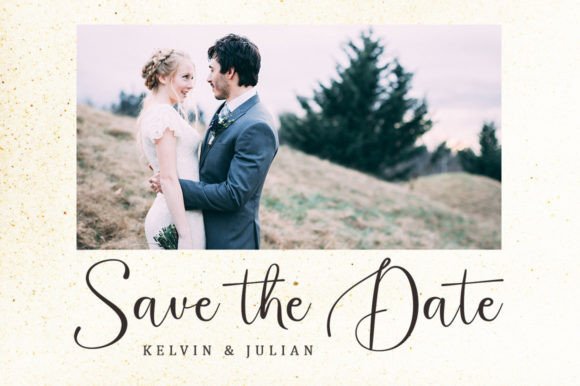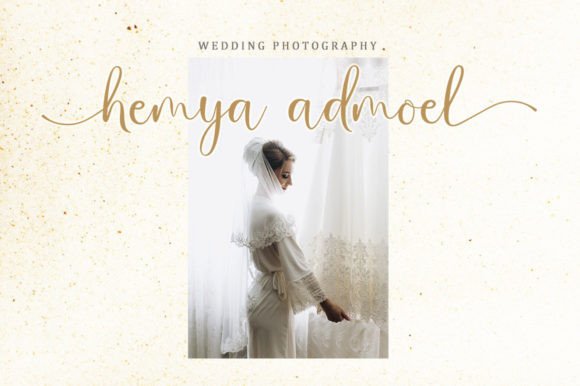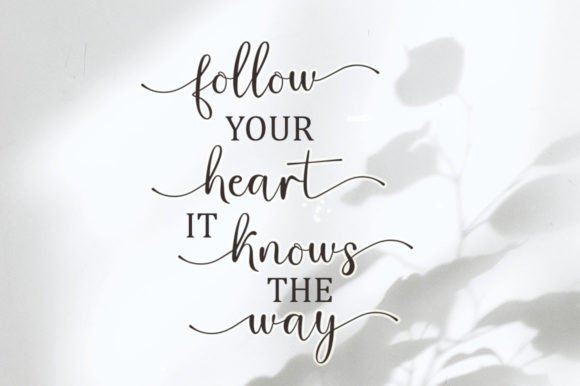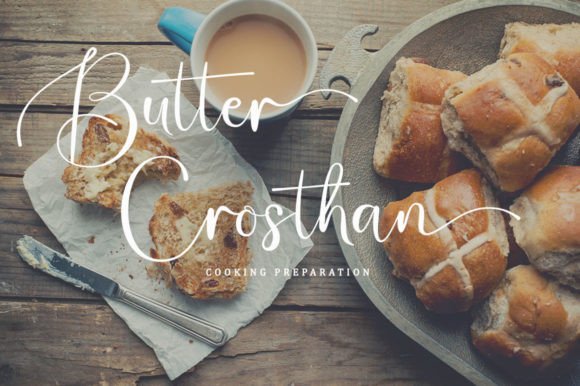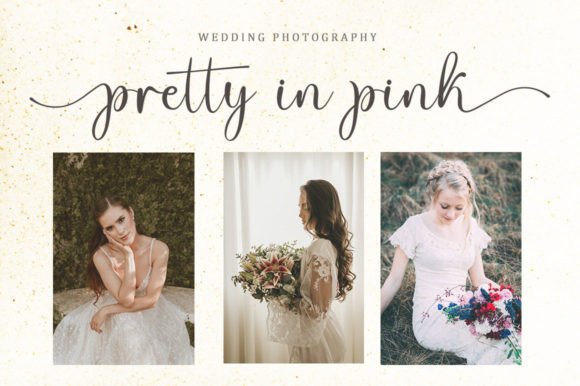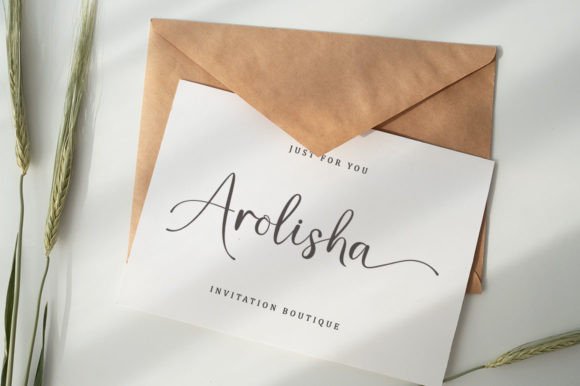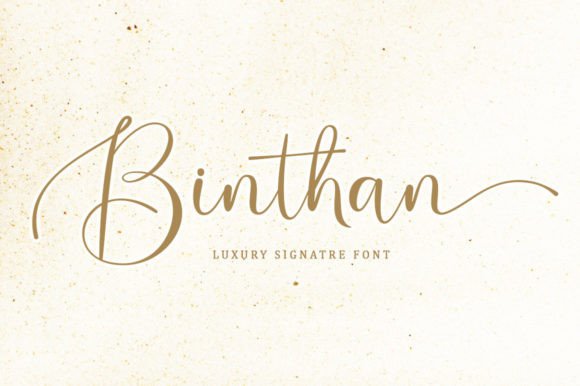
Introducing Binthan Font: Elevate Your Designs with Elegance and Sophistication
In the world of design, typography plays a crucial role in conveying the message and aesthetic of a project. A unique and well-crafted font can make all the difference in setting your designs apart from the rest. This is where Binthan Font comes into play – a stunning, modern handwritten font that exudes elegance and sophistication.
What Makes Binthan Font Stand Out?
Binthan Font is a carefully crafted, handwritten typeface that boasts a distinctive and refined look, reminiscent of a signature. Its uniqueness lies in its intentional design with alternating ligatures, which gives it a hand-styled appearance. This feature makes it an ideal choice for a wide range of design projects, including logos, labels, packaging designs, blog titles, posters, wedding designs, social media posts, and Instagram designs.
Key Features of Binthan Font
- Unique and Alternating Ligatures: Binthan Font’s distinctive ligatures give it a personalized and artistic touch, making your designs stand out.
- Elegant and Modern: The font’s modern and elegant look makes it suitable for a variety of design projects, from minimalist to luxurious.
- PUA Encoded: Binthan Font is PUA (Private Use Area) encoded, allowing easy access to all the amazing glyphs and ligatures.
- Hand-Styled Appearance: The font’s hand-styled look gives it a personal and artistic feel, perfect for designs that require a touch of personality.
- Versatile: Binthan Font can be used in a wide range of design projects, including logos, labels, packaging designs, blog titles, posters, wedding designs, social media posts, and Instagram designs.
Why Choose Binthan Font?
As a designer or crafter, you’re constantly on the lookout for unique and high-quality fonts that can elevate your designs. Binthan Font offers a range of benefits that make it an excellent choice:
- Save Time: With Binthan Font, you can quickly create stunning designs without spending hours on typography.
- Enhance Your Brand: The font’s elegant and modern look can help establish your brand’s identity and make it more recognizable.
- Easy to Use: Binthan Font is PUA encoded, making it easy to access and use the glyphs and ligatures.
- High-Quality: The font is designed with high-quality and legibility in mind, ensuring that your designs look professional and polished.
Binthan Font is a unique, elegant, and modern handwritten font that can elevate your designs to the next level. Its intentional design with alternating ligatures, PUA encoding, and hand-styled appearance make it perfect for a wide range of design projects. Whether you’re a designer, crafter, or DIY enthusiast, Binthan Font is an excellent choice for adding a touch of sophistication and elegance to your work.